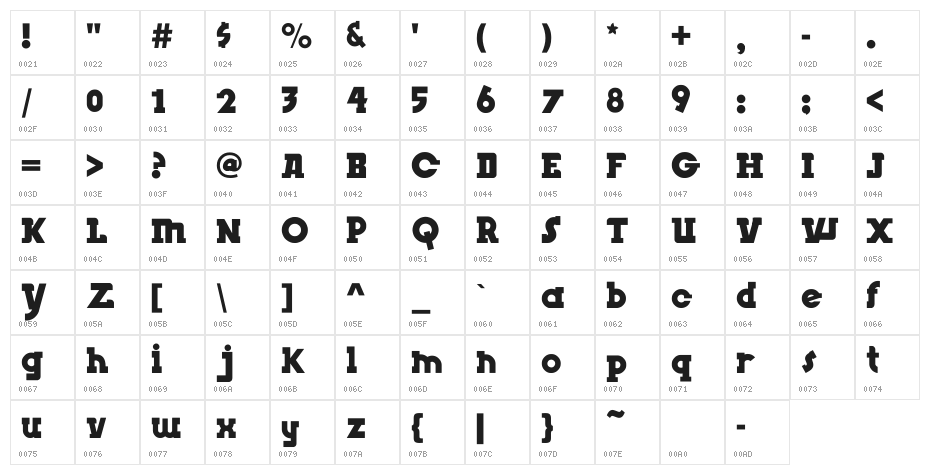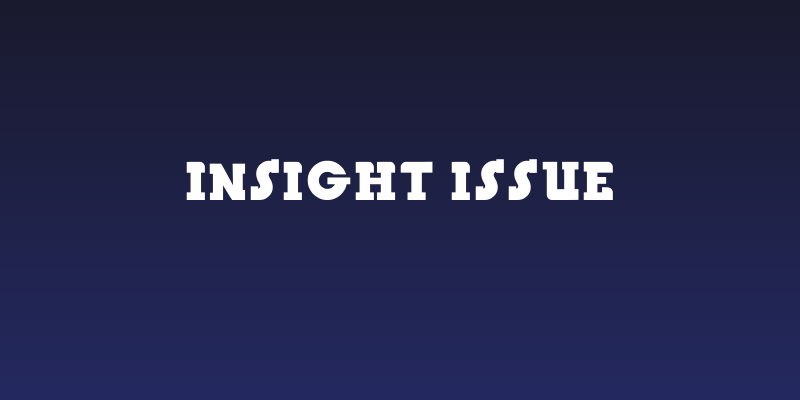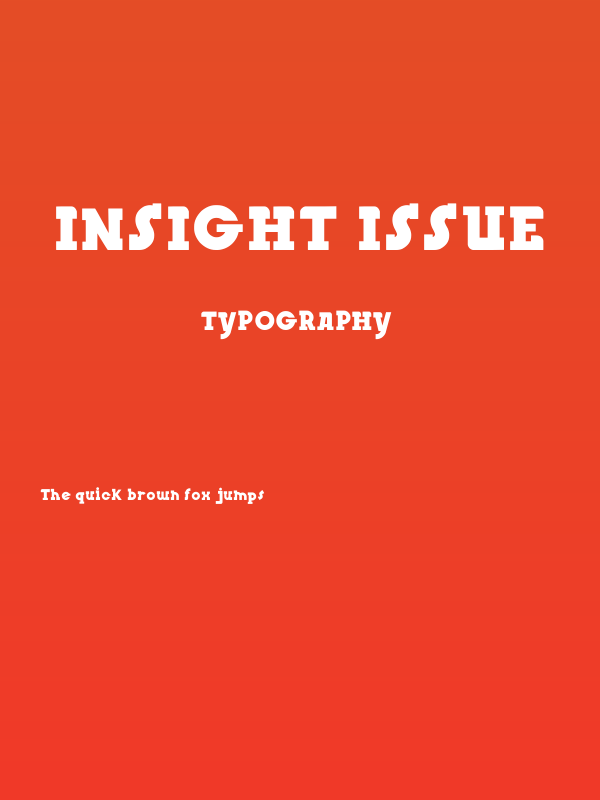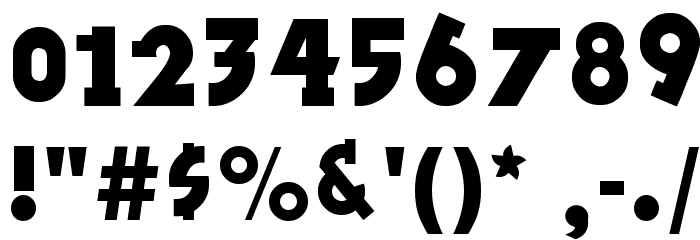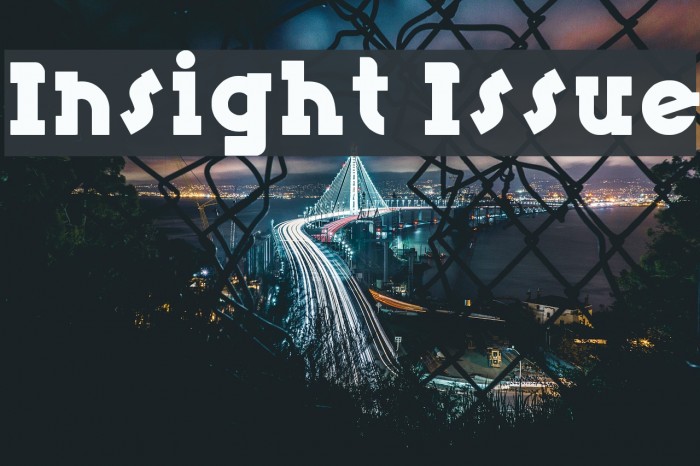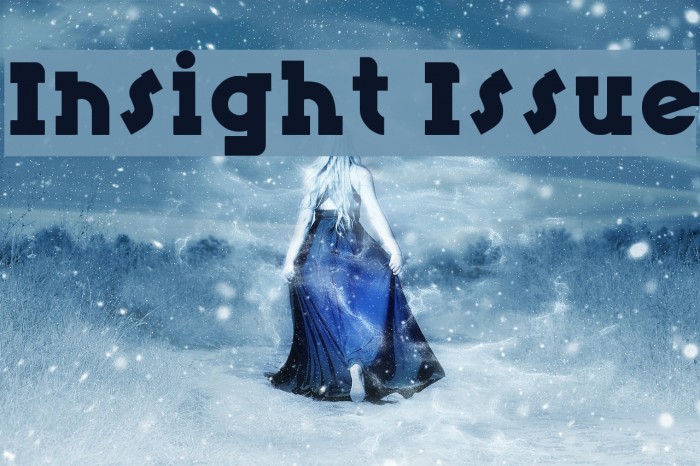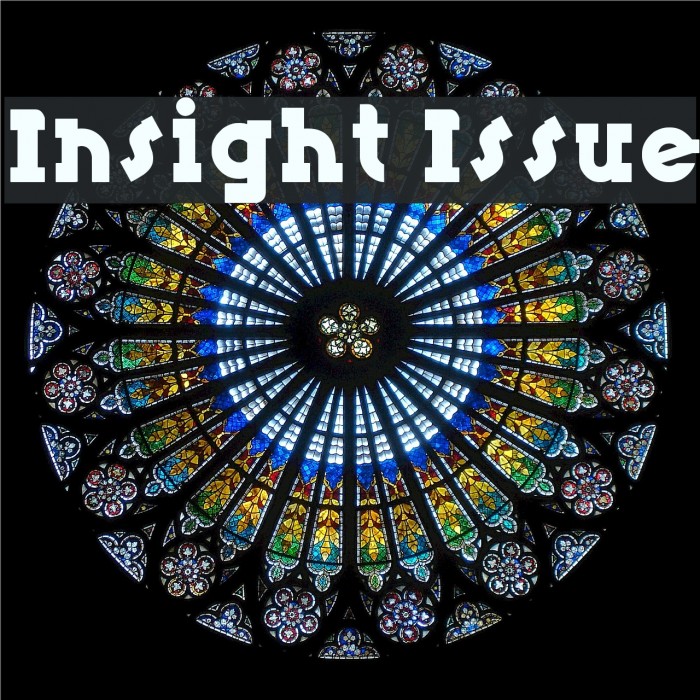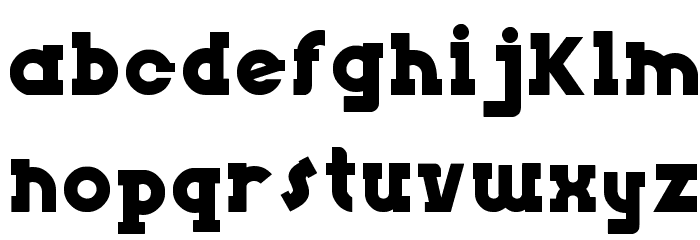
Insight Issue Font
Insight Issue Description
This font exhibits a bold and playful style with a strong presence. The characters are designed with a unique geometric flair, featuring thick strokes and angular edges that create a sense of movement and energy. The uppercase letters are particularly striking, with exaggerated serifs and a slightly condensed form that adds to the font's dynamic appearance. The lowercase letters maintain this boldness while offering a more rounded and approachable feel. Numbers and special characters are consistent with the overall design, ensuring versatility across various applications. This font's distinct personality makes it ideal for projects that require a strong visual impact.
| Proposed Projects | Ideal for branding, posters, headlines, and any project needing a bold statement. |